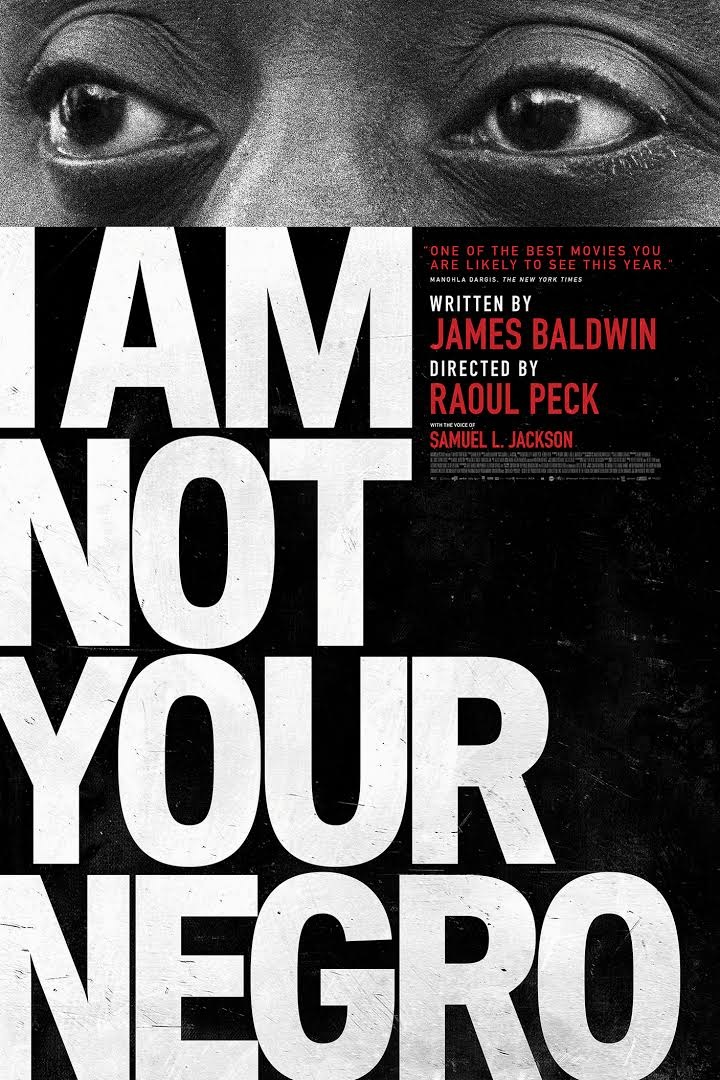
I Am Not Your Negro Font
DocumentaryI Am Not Your Negro is a 2016 documentary film directed by Raoul Peck. The film is based on James Baldwin's unfinished manuscript "Remember This House," which tells the story of the Civil Rights Movement through the lives and deaths of Baldwin's friends, Medgar Evers, Malcolm X, and Martin Luther King Jr.
The movie poster features a condensed sans serif font for the title lettering similar to FF Din Black. The font family was created by Albert-Jan Pool around 1996.